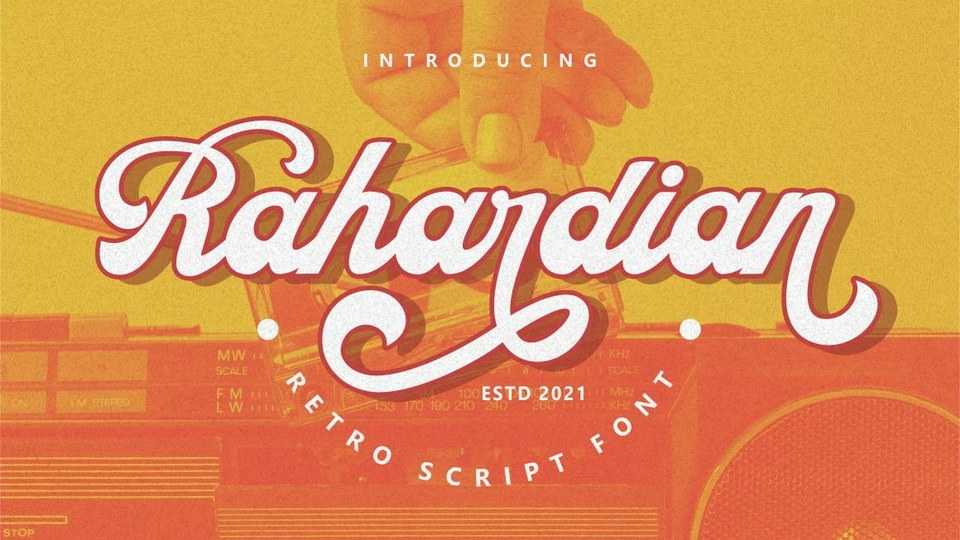
Download Rahardian font, a gorgeous, retro handwritten typeface, crafted to give your headlines and logotype projects a stylish touch. Rahardian reads as strong, confident, and dynamic and can add tons of nostalgic character to your designs.
Designer: PutraCetol Studio